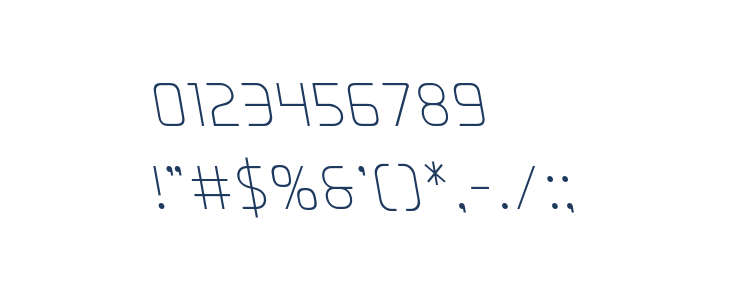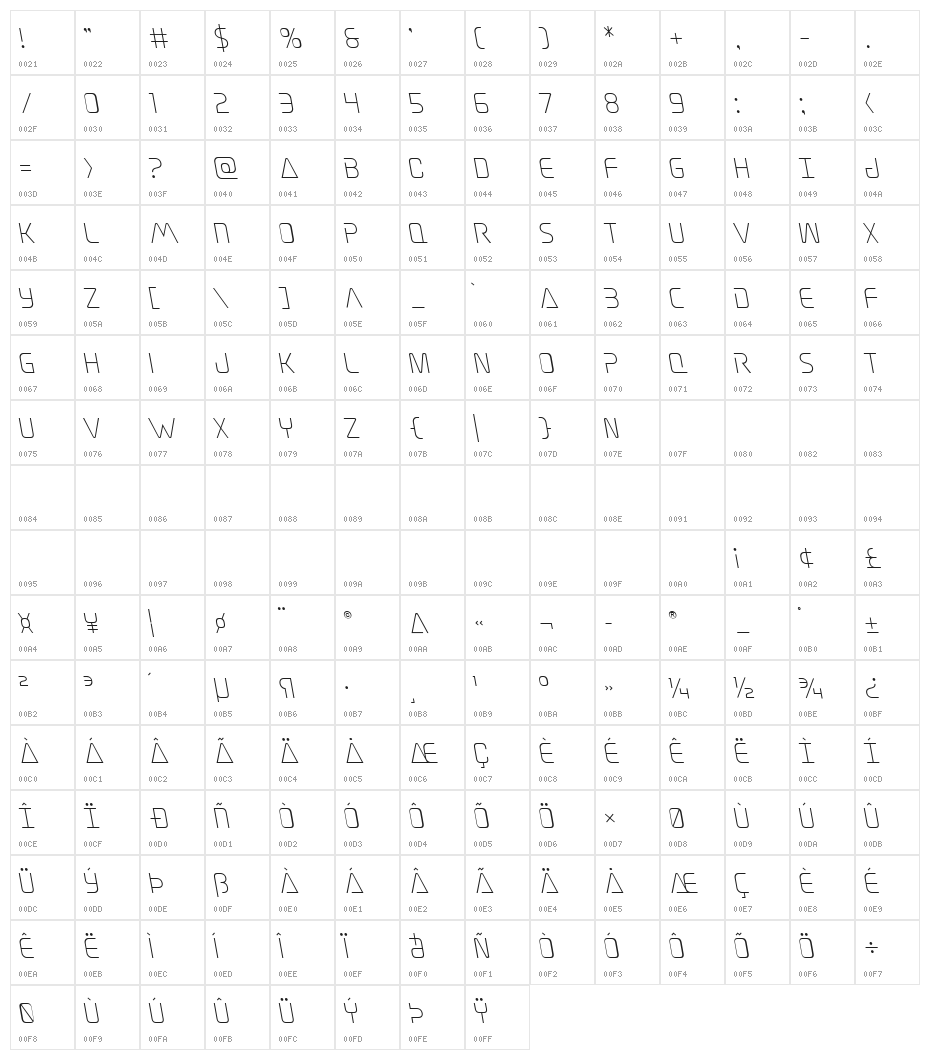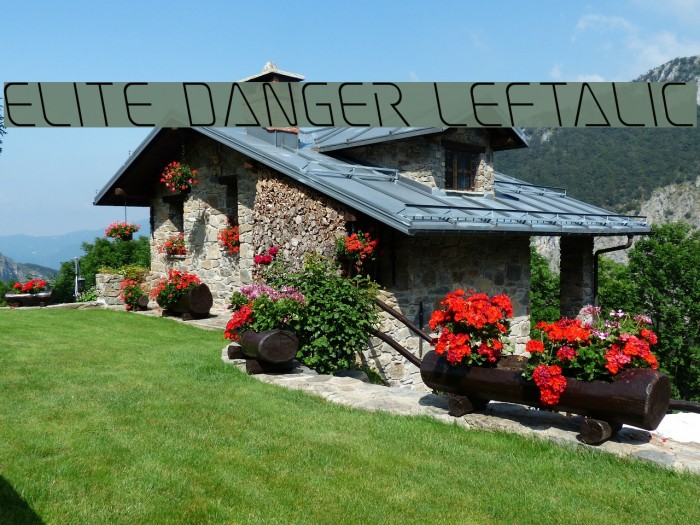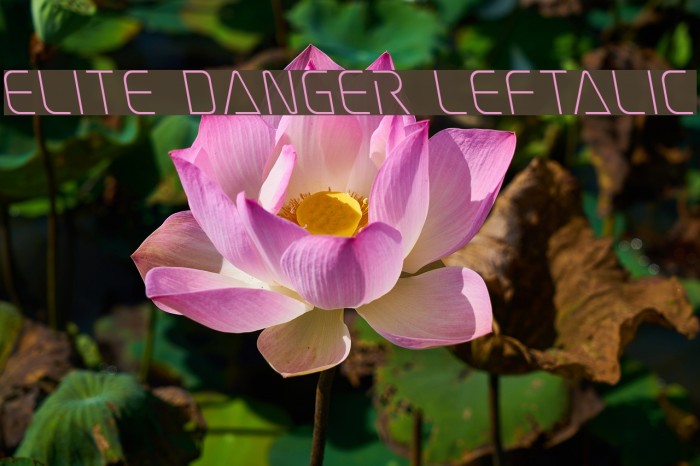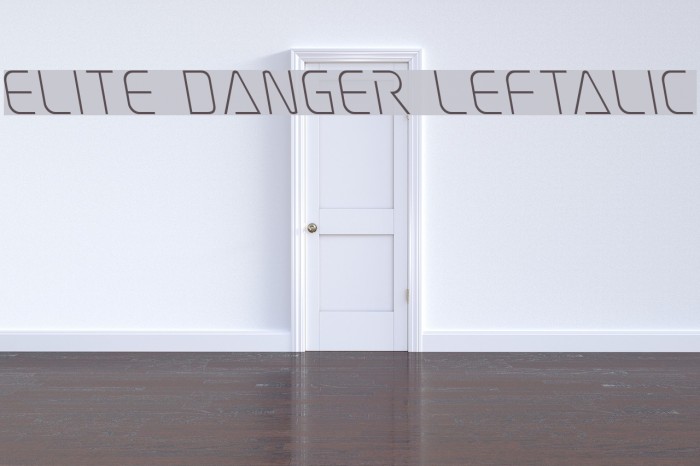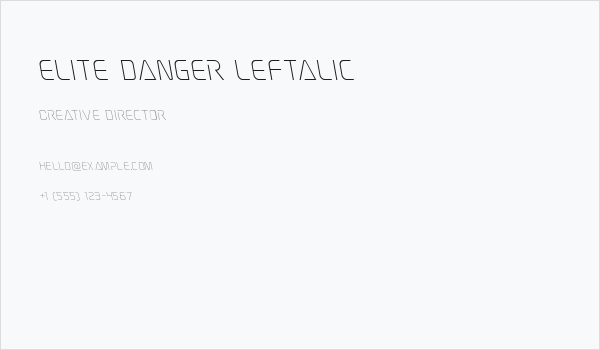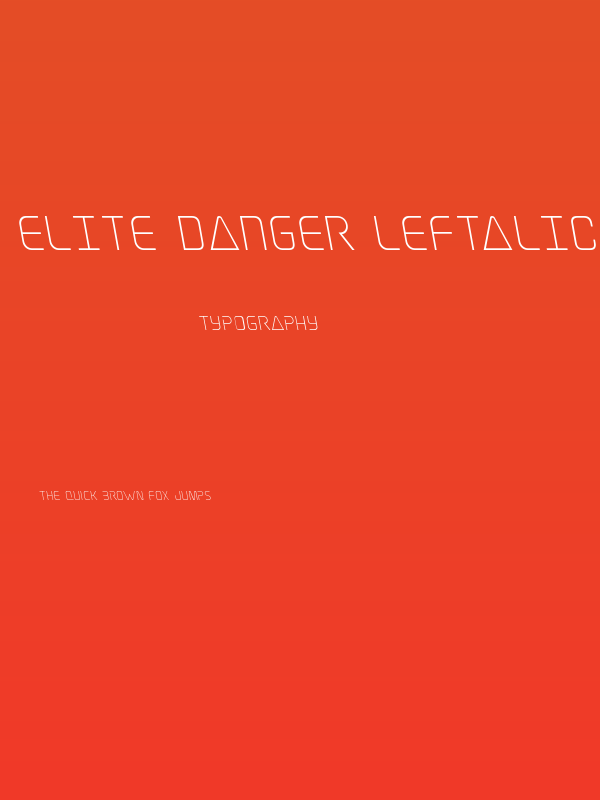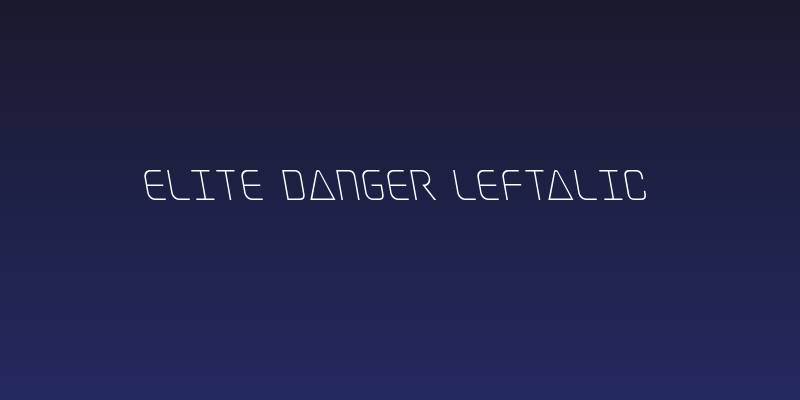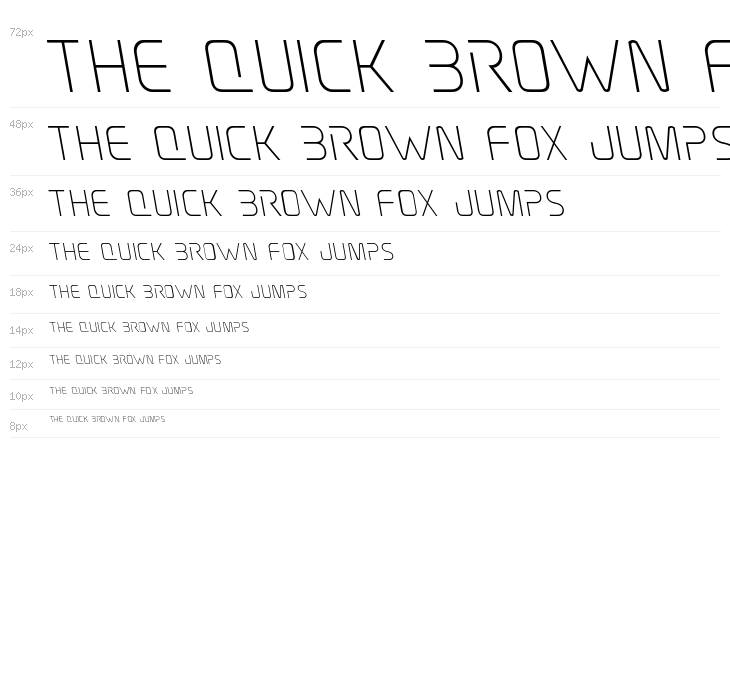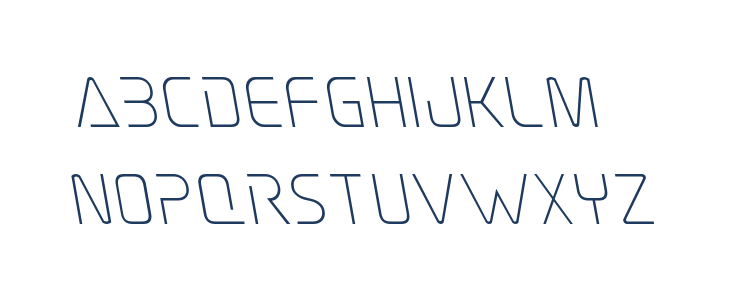
Elite Danger Leftalic Font
Elite Danger Leftalic Description
This font features a futuristic and geometric design with a distinct angular style. The characters are constructed with clean, straight lines and sharp angles, giving it a modern and tech-inspired appearance. The uppercase and lowercase letters maintain a consistent structure, enhancing readability while adding a unique flair. The numerals and special characters follow the same design principles, ensuring uniformity across all glyphs. The overall aesthetic is sleek and minimalistic, making it suitable for projects that require a contemporary and innovative look.
| Use Case | Logos, Headlines, Digital interfaces |
| Proposed Projects | Ideal for technology branding, sci-fi themed projects, modern logos, and digital interfaces. |